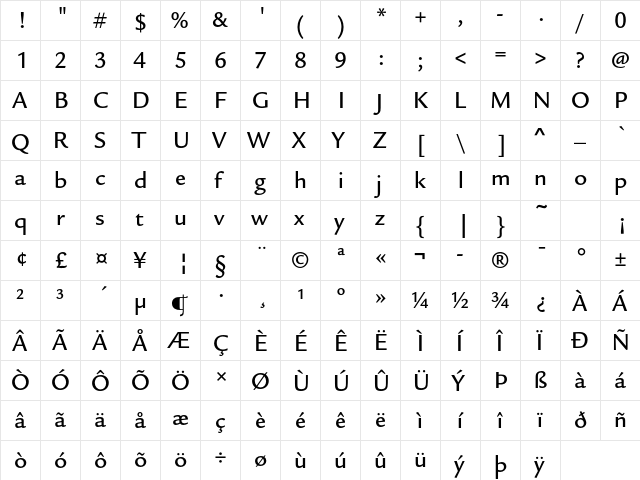
ITC Legacy Sans Std Medium Font Preview
ITC Legacy Sans Std Medium
ITC Legacy Sans Std Medium Font Details
| Designer | Ronald Arnholm |
Design Context for ITC Legacy Sans Std Typeface
ITC Legacy Sans Std takes a measured approach to typography — its balanced proportions and neutral character make it a reliable workhorse for both digital and print work.